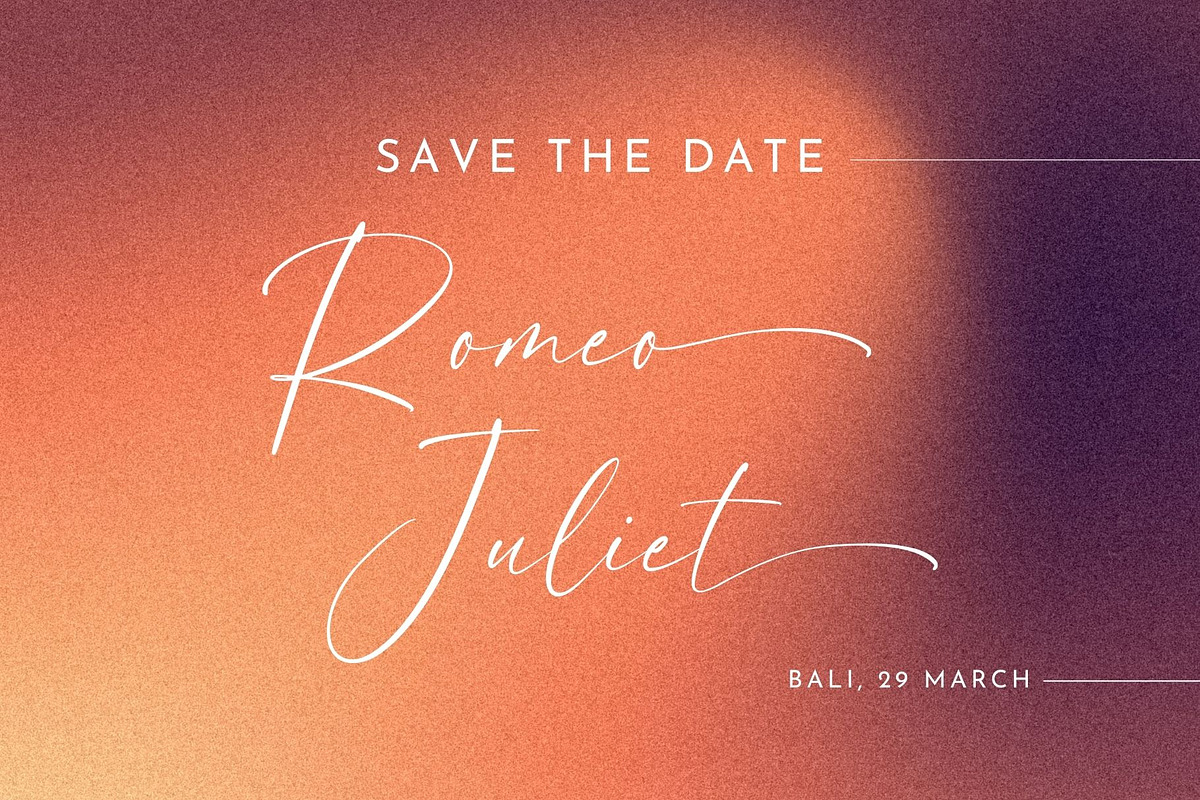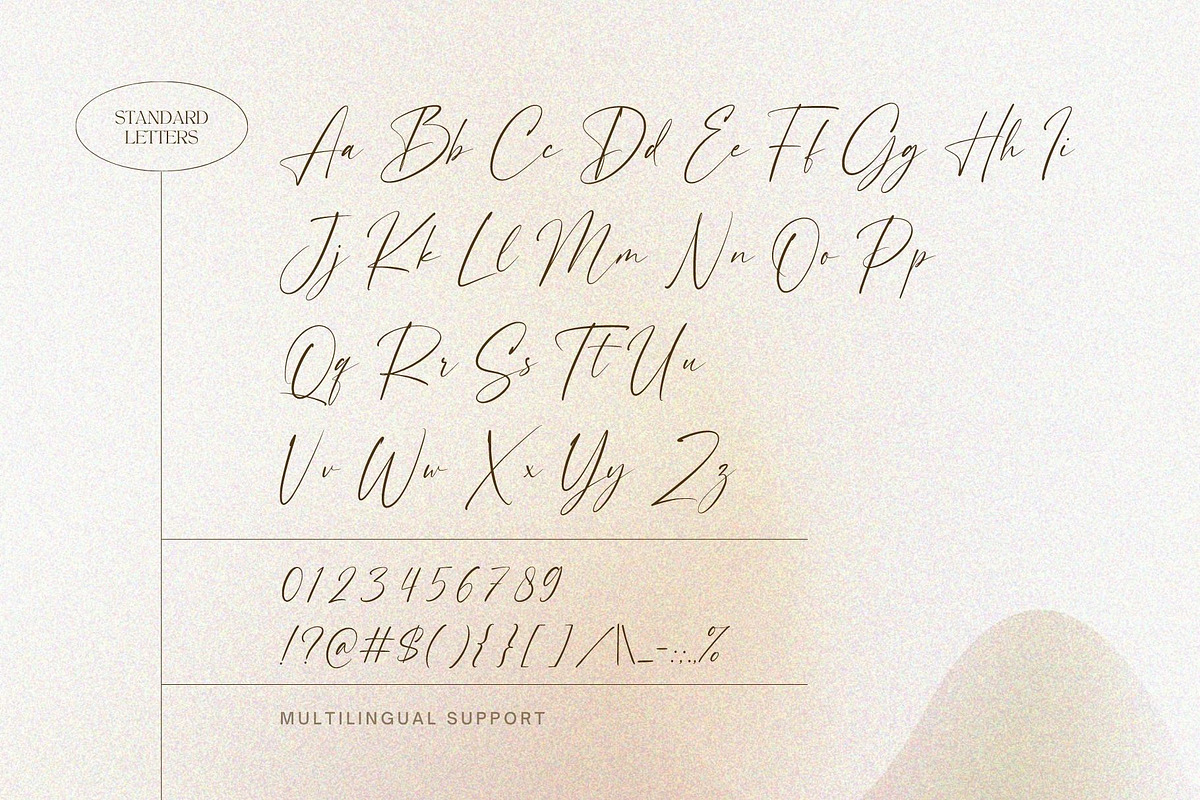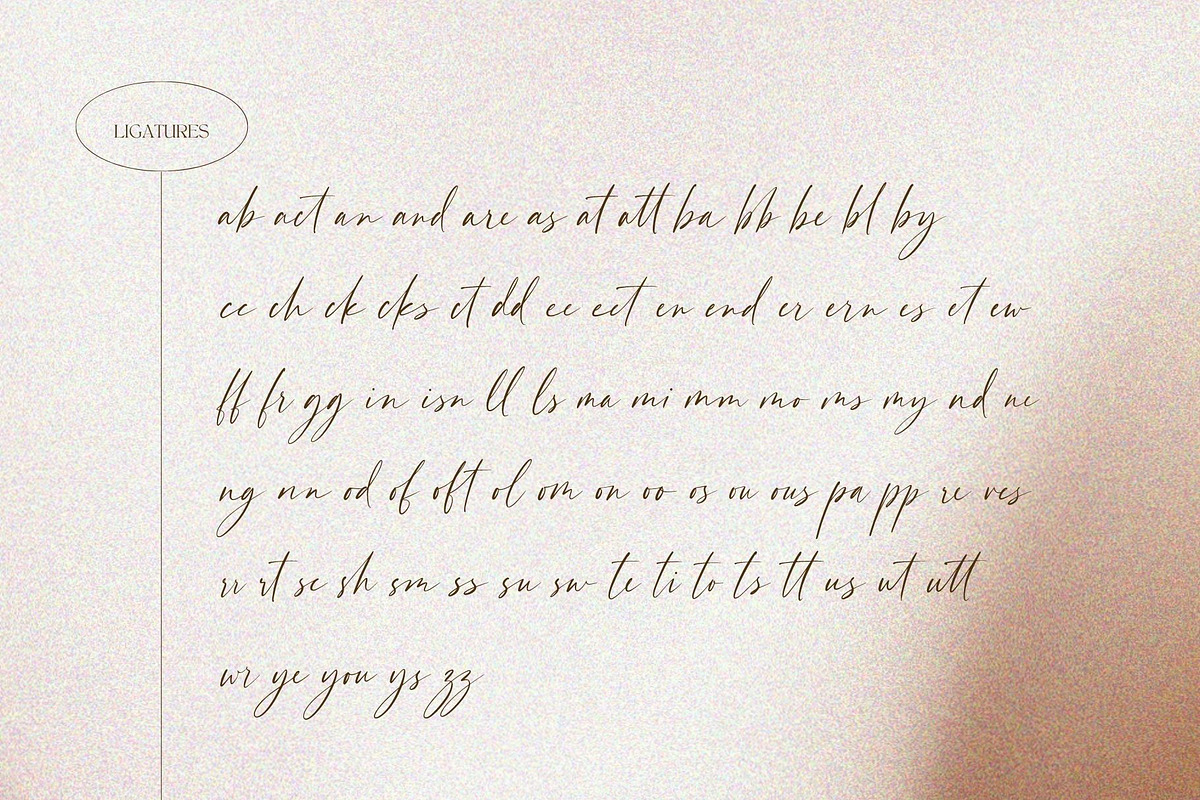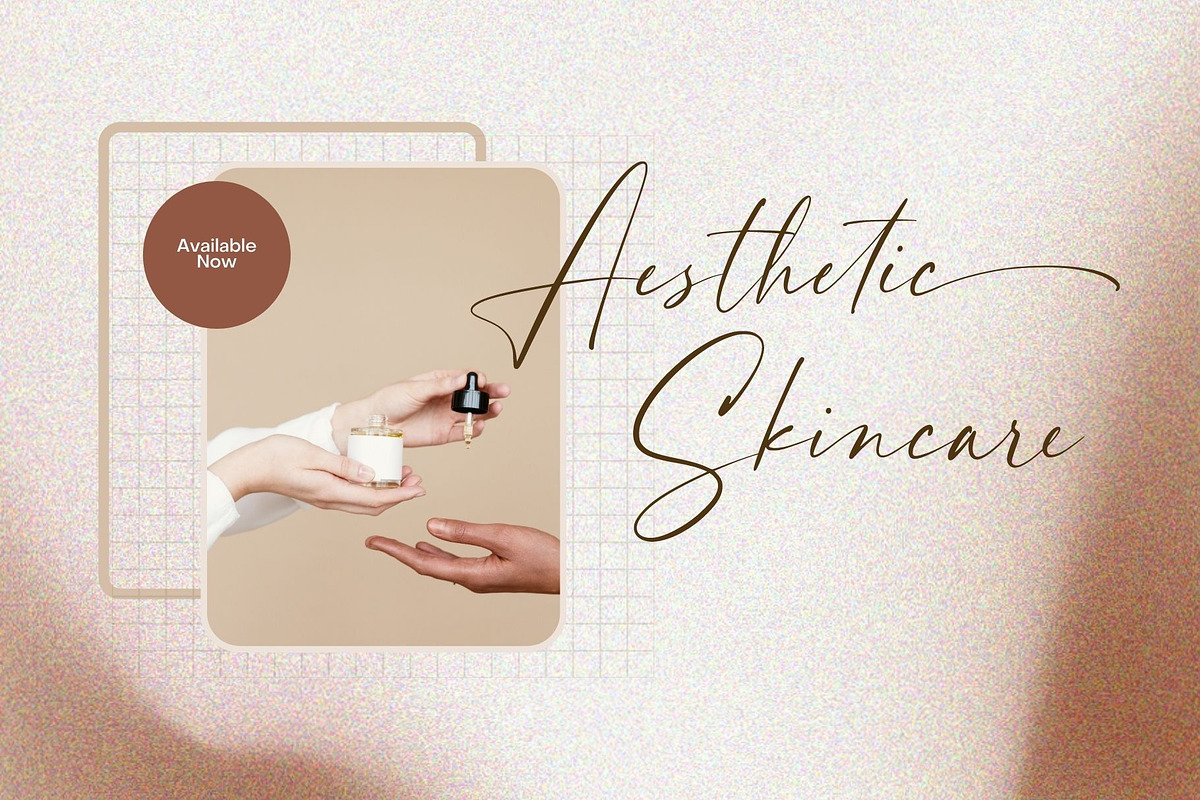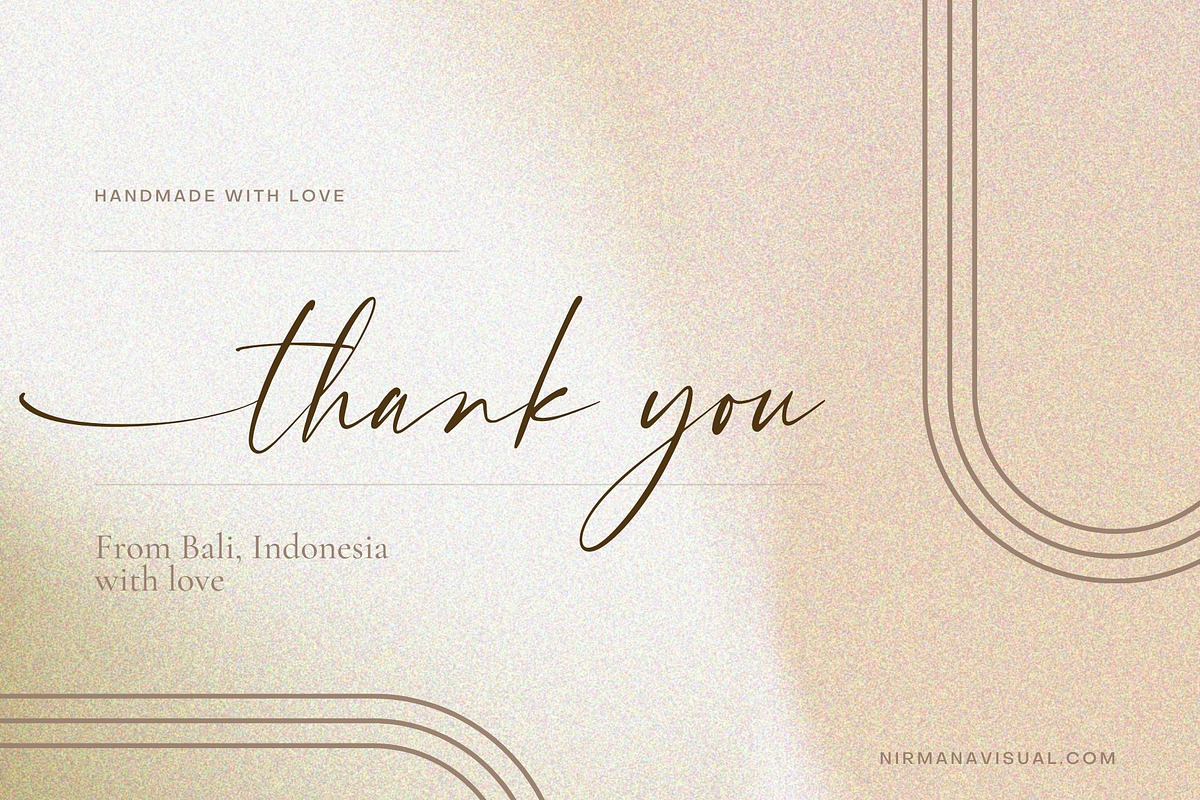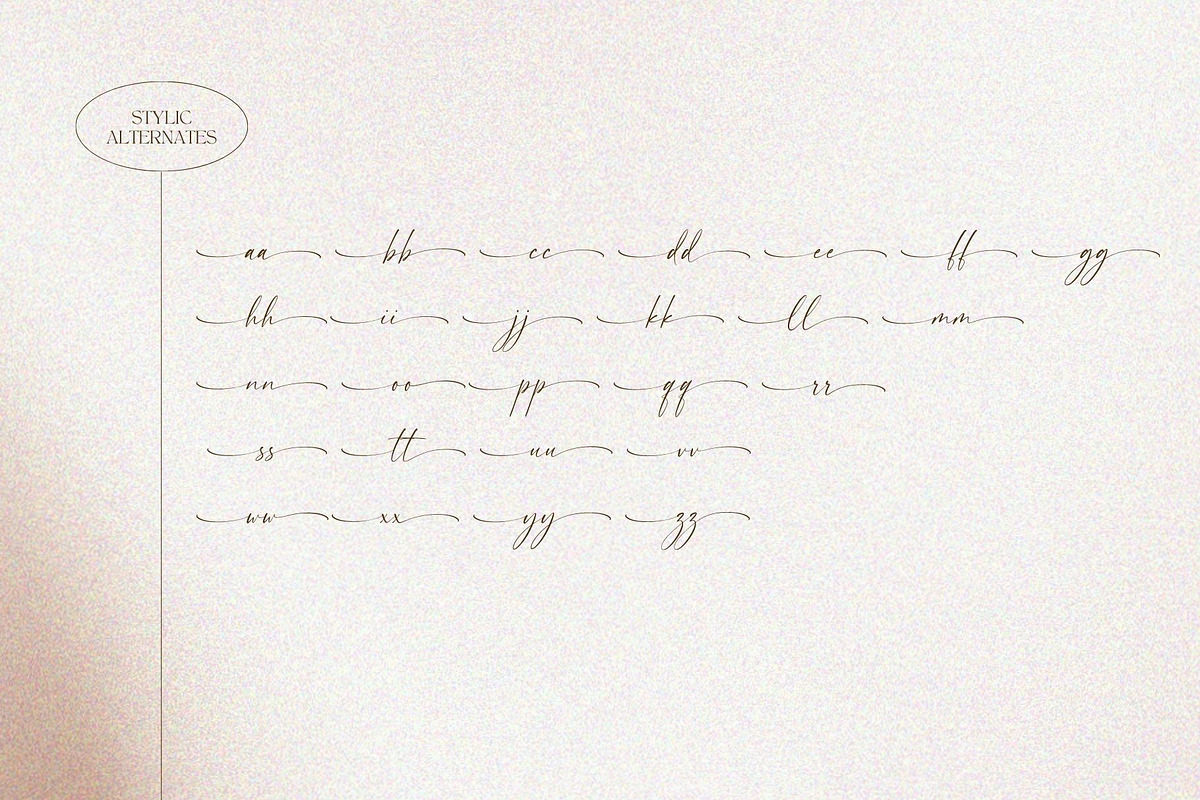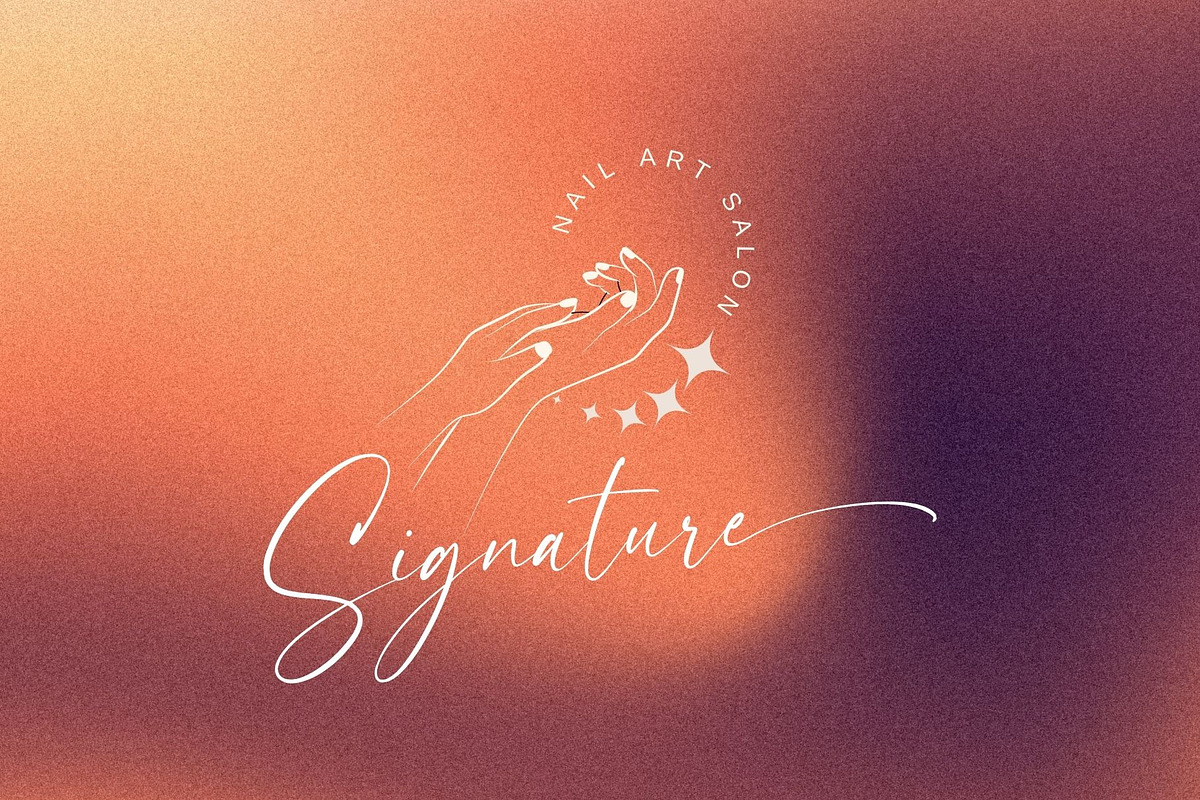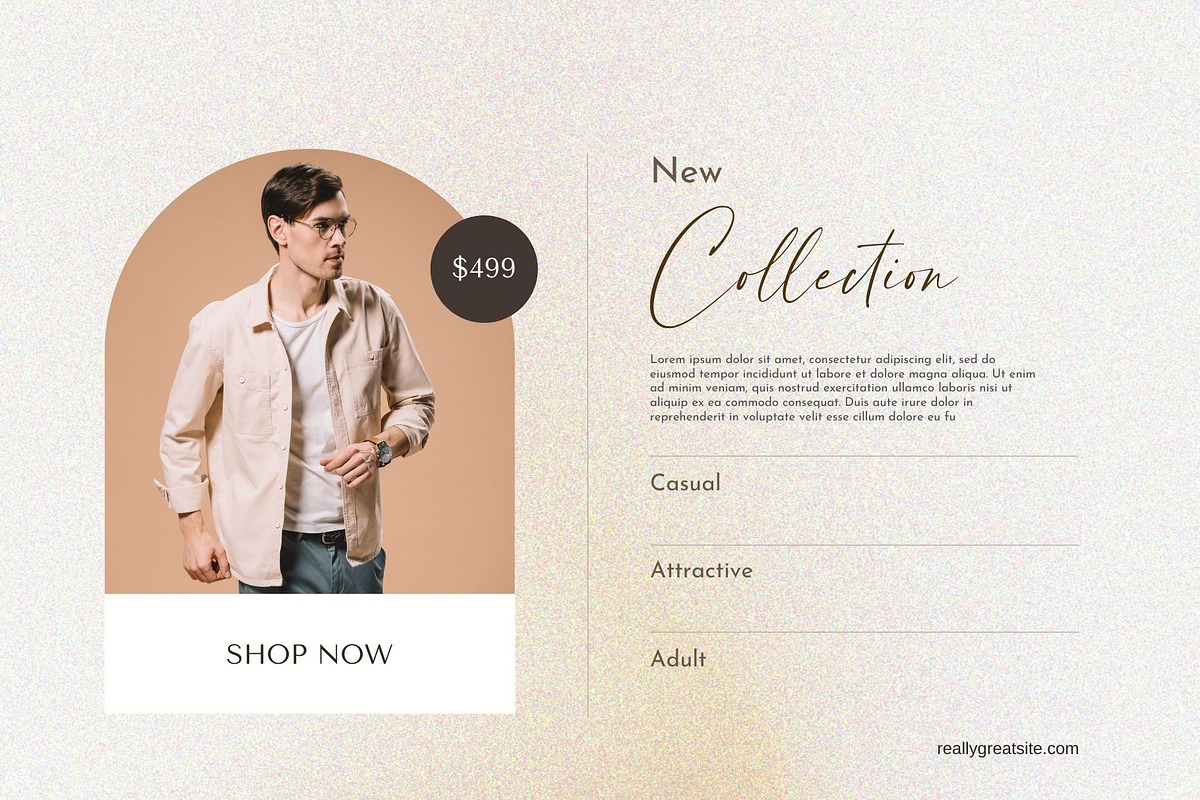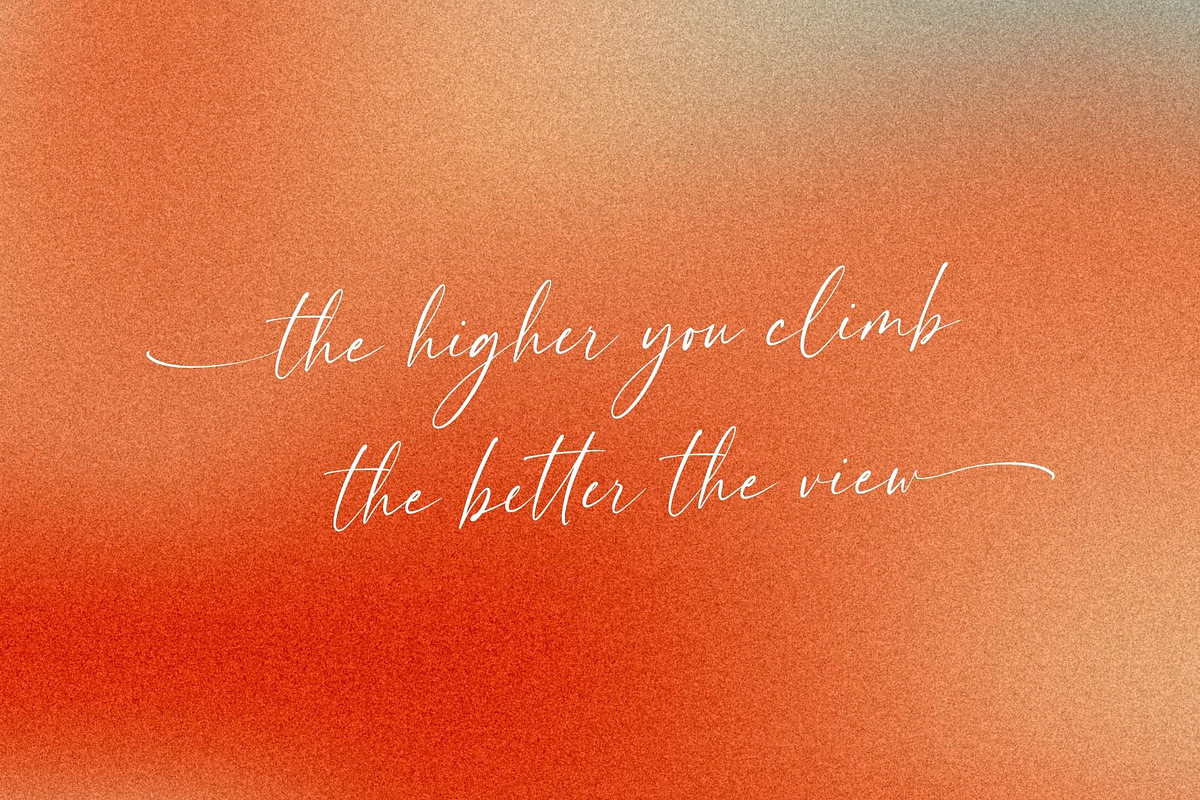
Beauty Handwriting handwritten font
Beauty Handwriting is a Natural handwriting modern calligraphy font.
full set of lowercase and uppercase letters, numerals and punctuation, multilingual symbols, lowercase beginning and ending swashes.
80 ligatures giving realistic hand-lettered style.